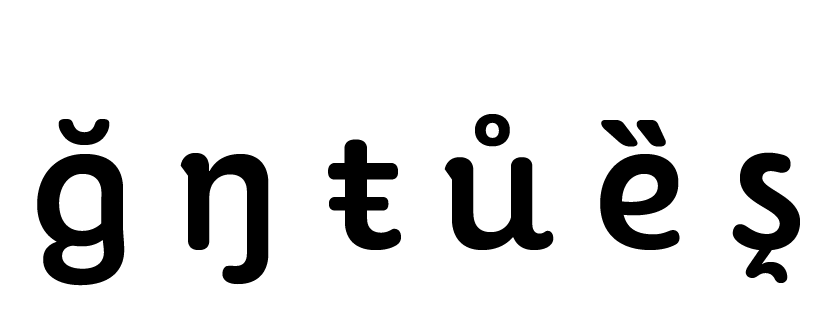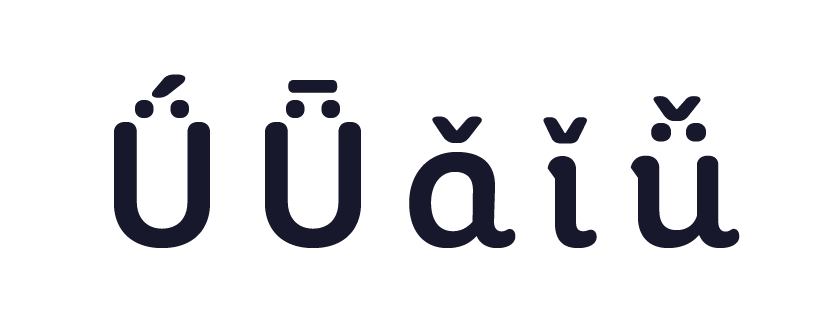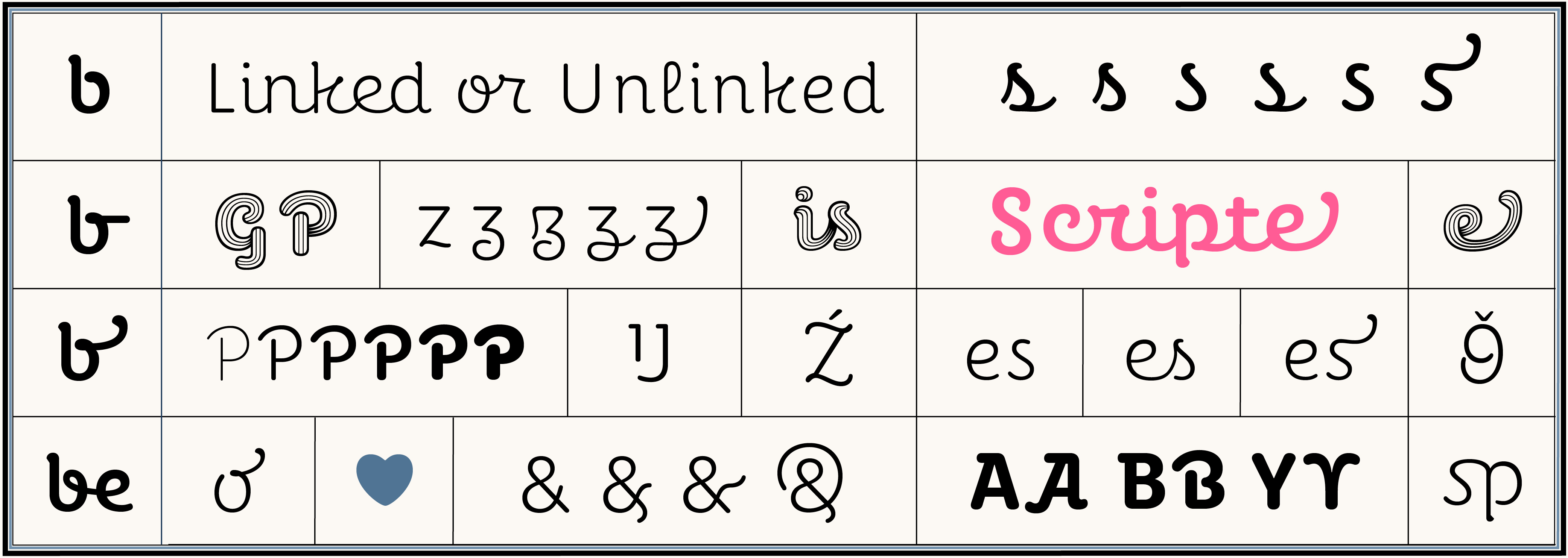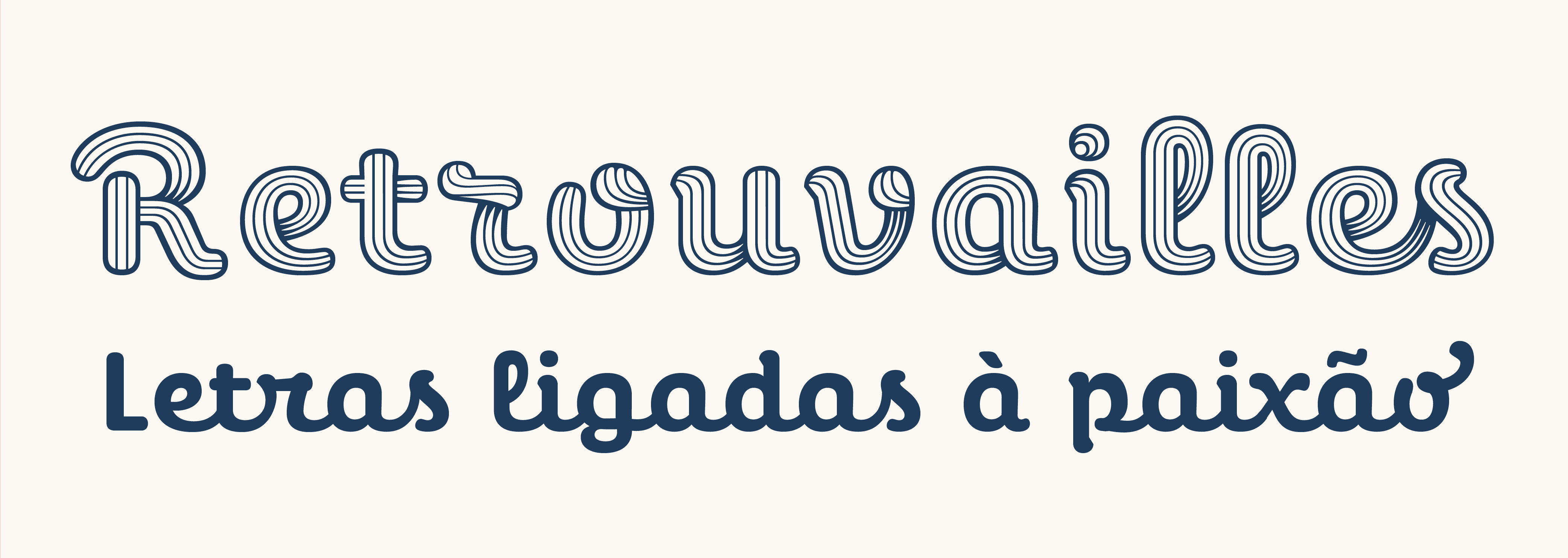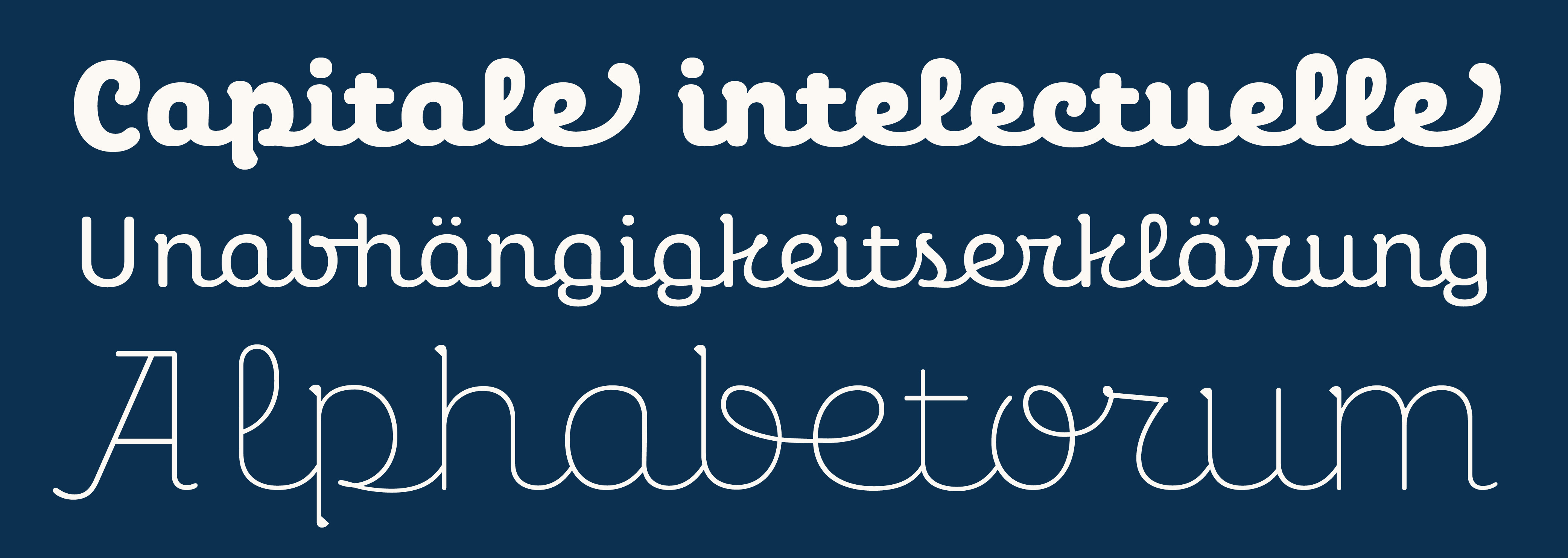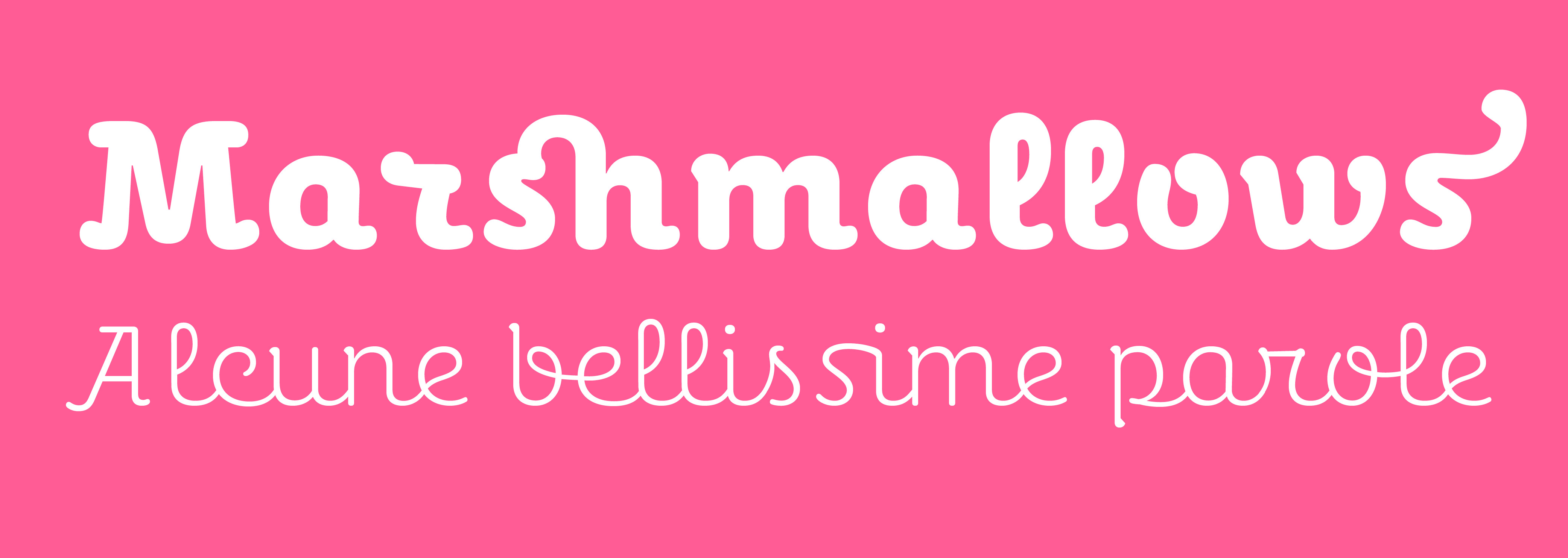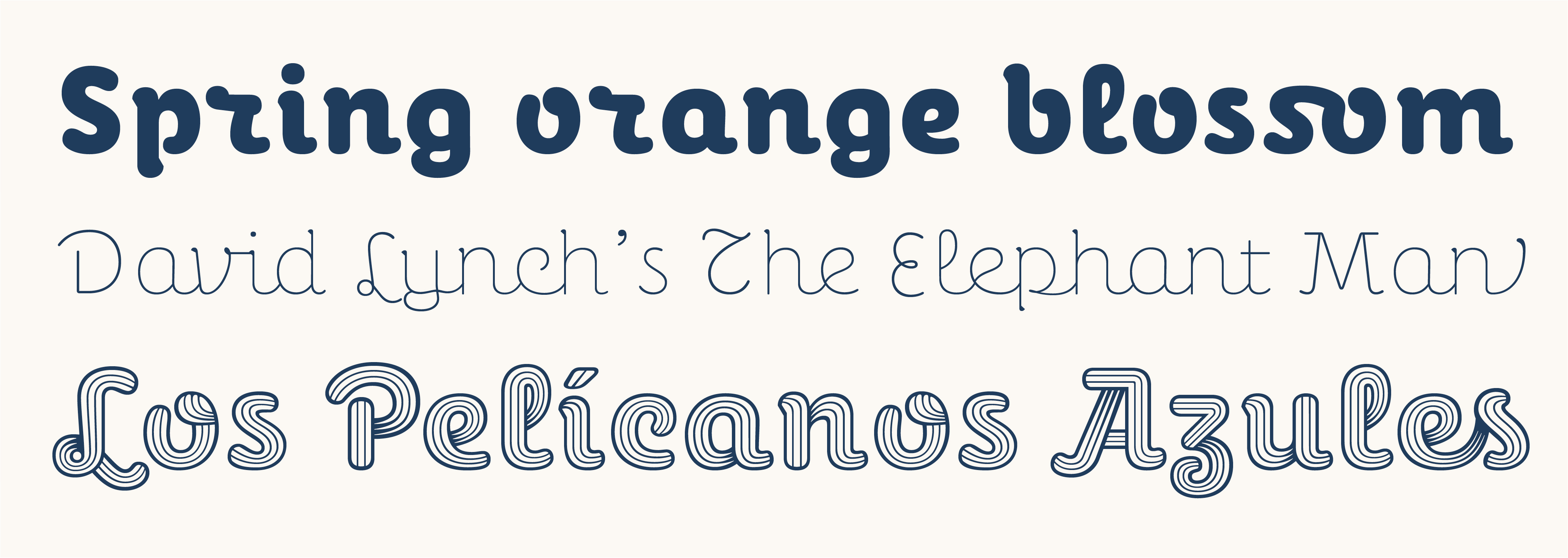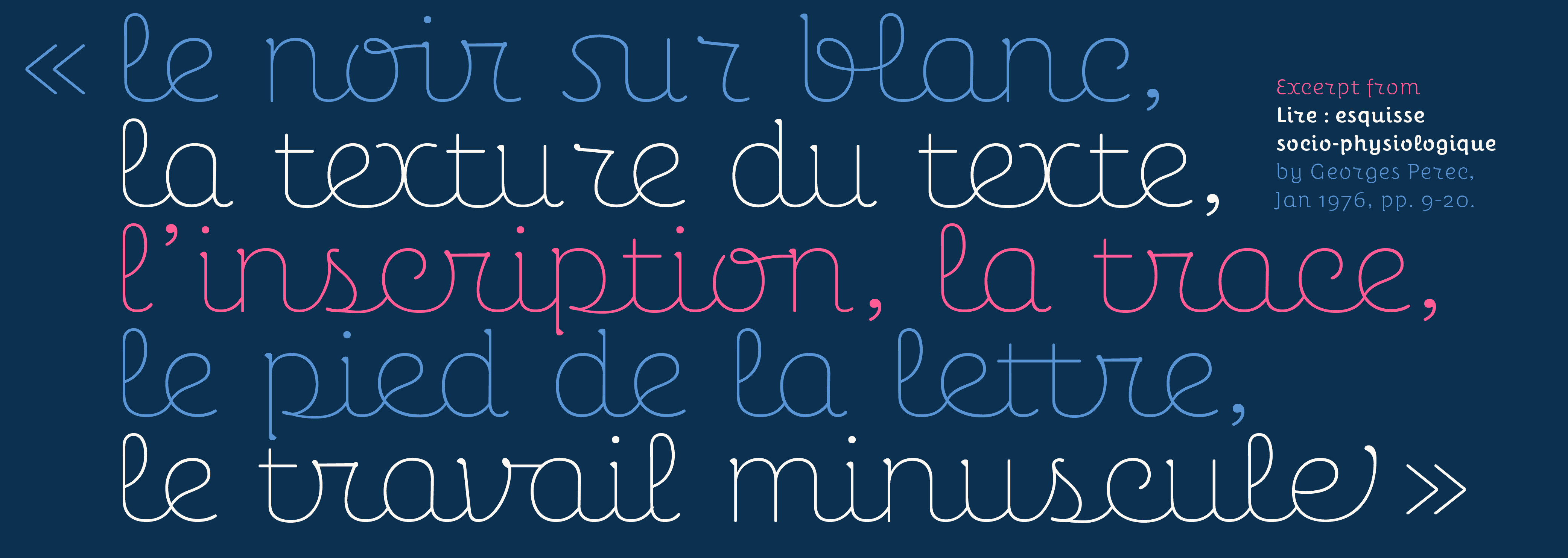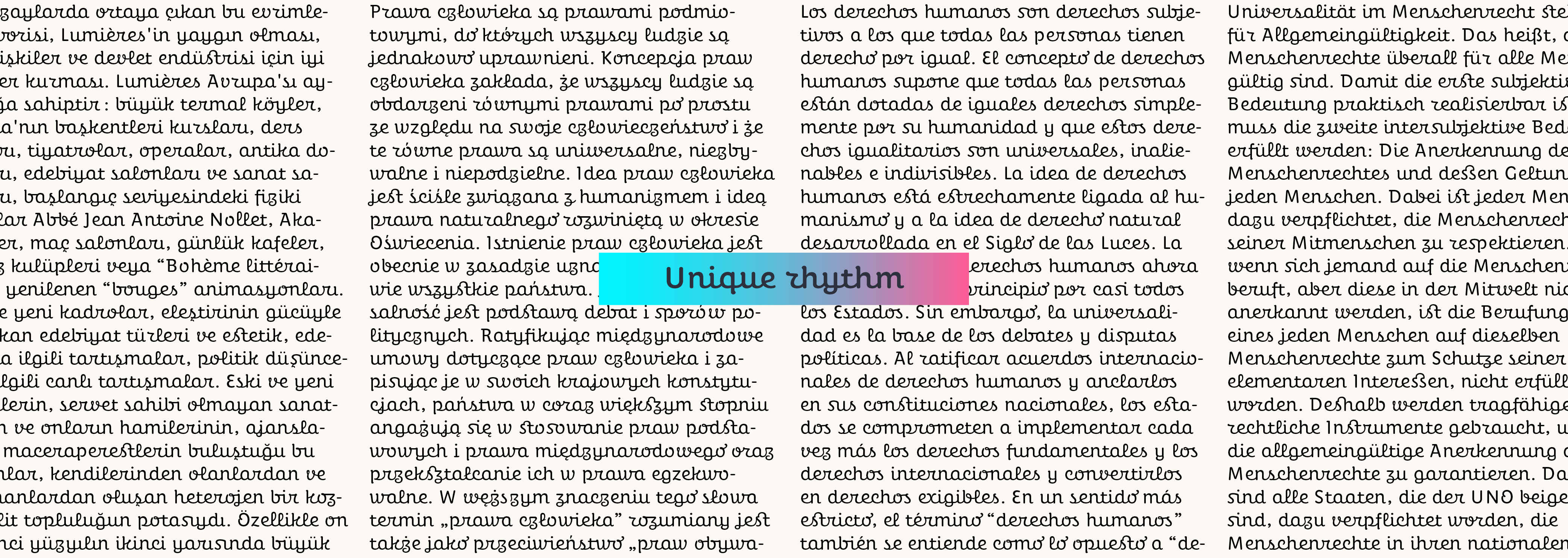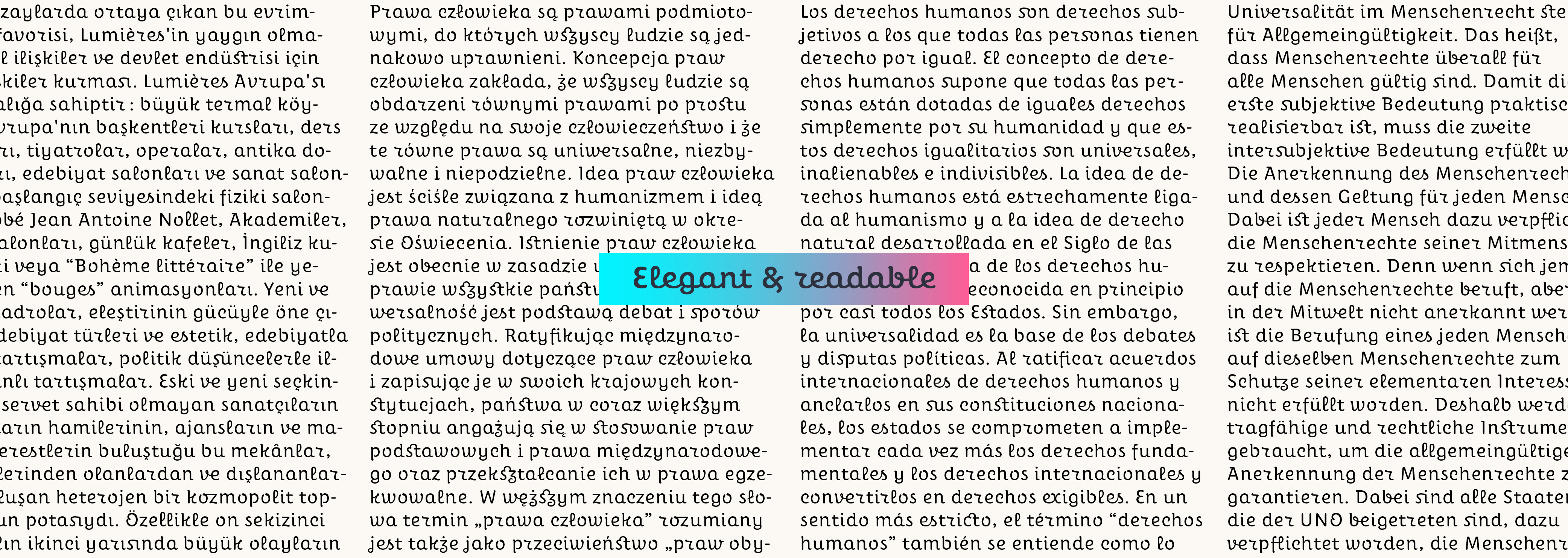
A captivating, alluring script typeface
With a serene air and a hint of nostalgia, Perec Scripte is a vertical script font with a delicate persuasive tone. It comes in two styles: Unlinked (1) and Linked (2), both declined in six comprehensive weights including numerous contextual sorts, ligatures, alternates, swashes and more. Although it was conceived as a display font, it can also be used in text pieces that are not too long, especially the Light, Regular and Medium weights. Of the two styles, the unlinked version is naturally more legible in smaller sizes. The third style of the family is Perec Scripte Deco, meant for greater graphic impact, ideal for special titles, signs and logos. Perec Scripte Deco has three carefully hand-drawn stripes that flow throughout the alphabet giving a subtle sense of volume and creating a unique word appeal. Equipped with the same Latin extended set, it also includes ligatures, swashes, two sets of numerals and many more type goodies. Like the Perec and Perec Ludique, the Perec Scripte series is part of the Perec superfamily designed as a tribute to the genius of Georges Perec, a singular writer of the 20th century. All Perec styles can be used together, judiciously, to achieve editorial pages rich in expression. Find out more in our article on Perec Scripte!
All about the design process & features of Perec Scripte
Perec Scripte
Designed by Alejandro Lo Celso.
Characteristics
• display
• hybrid
• literary
• manual
• modernist
• multi-style
• script
• super-family
• system
• text
• upright cursive
• versatile
• Language coverage
Latin Extended
Characters per font
Perec Scripte 1 (unlinked): 1850
Perec Scripte 2 (linked): 2125
Perec Scripte Deco: 1406
Total family glyphs: 25,256
Features & Specials
Latin extended
pinyin latin
alternate glyphs
standard ligatures
discretionary ligatures
historic/taxonomic forms
language local forms
swashes
extended currencies
tabular currencies
case sensitive forms
alternate German umlaut
cool ampersands
smart positional forms
oldstyle figures
lining figures
tabular oldstyle figs
tabular lining figs
slashed zero
smart fractions
ordinals
inferiors/superiors
fists
icons & arrows
deco: latin extended
standard + discretionary ligatures
alternate glyphs
positional forms
upper & lowercase swashes
cool ampersands